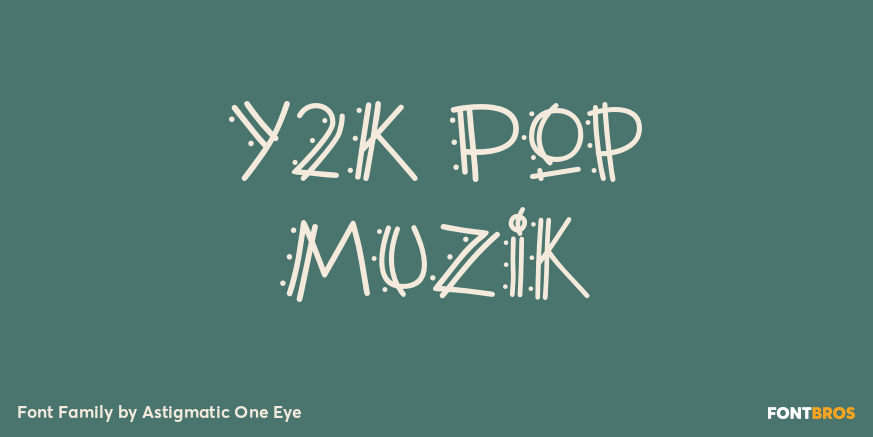
Y2K Pop Muzik
About Y2K Pop Muzik
The Y2K PopMuzik Family was created as a tribute to Patricia Lillie\’s Poptics font sets, a wonderful grouping of funky offbeat typeface that are alot of fuel for inspiration. It was also created just in time for a Y2K font contest, thus the Y2K tag. In…